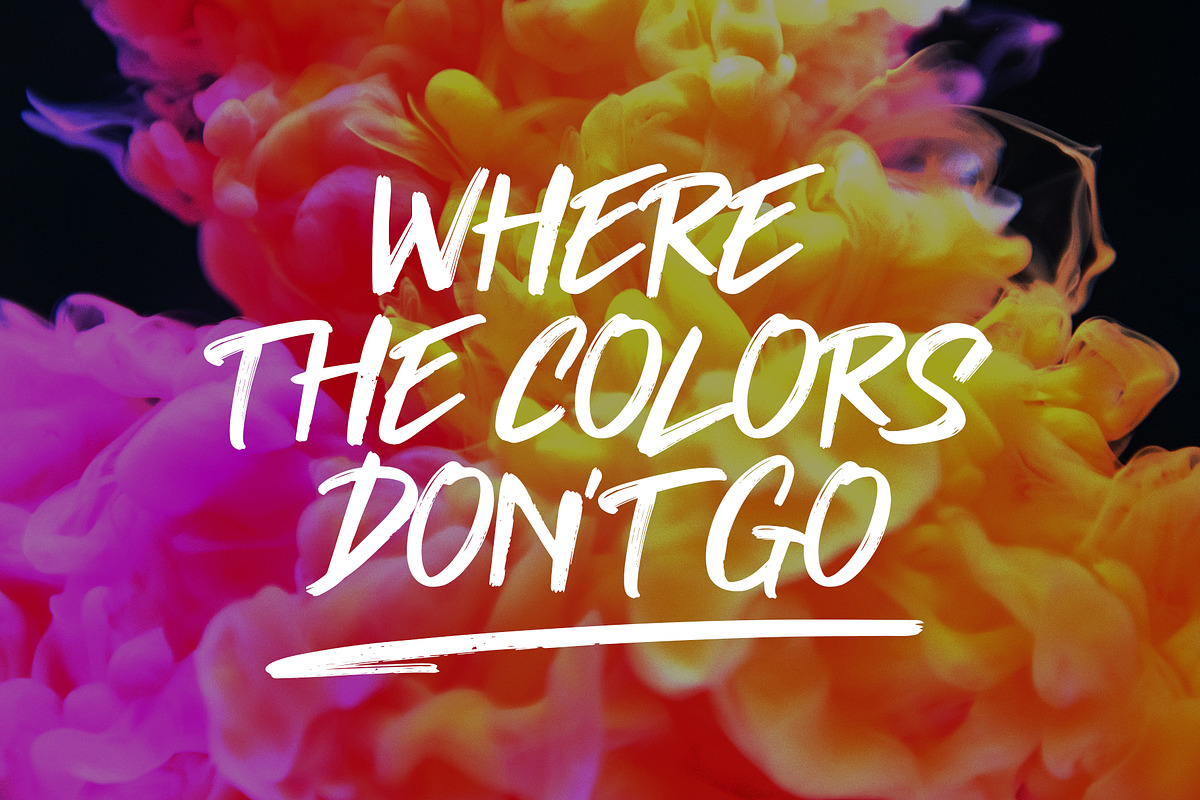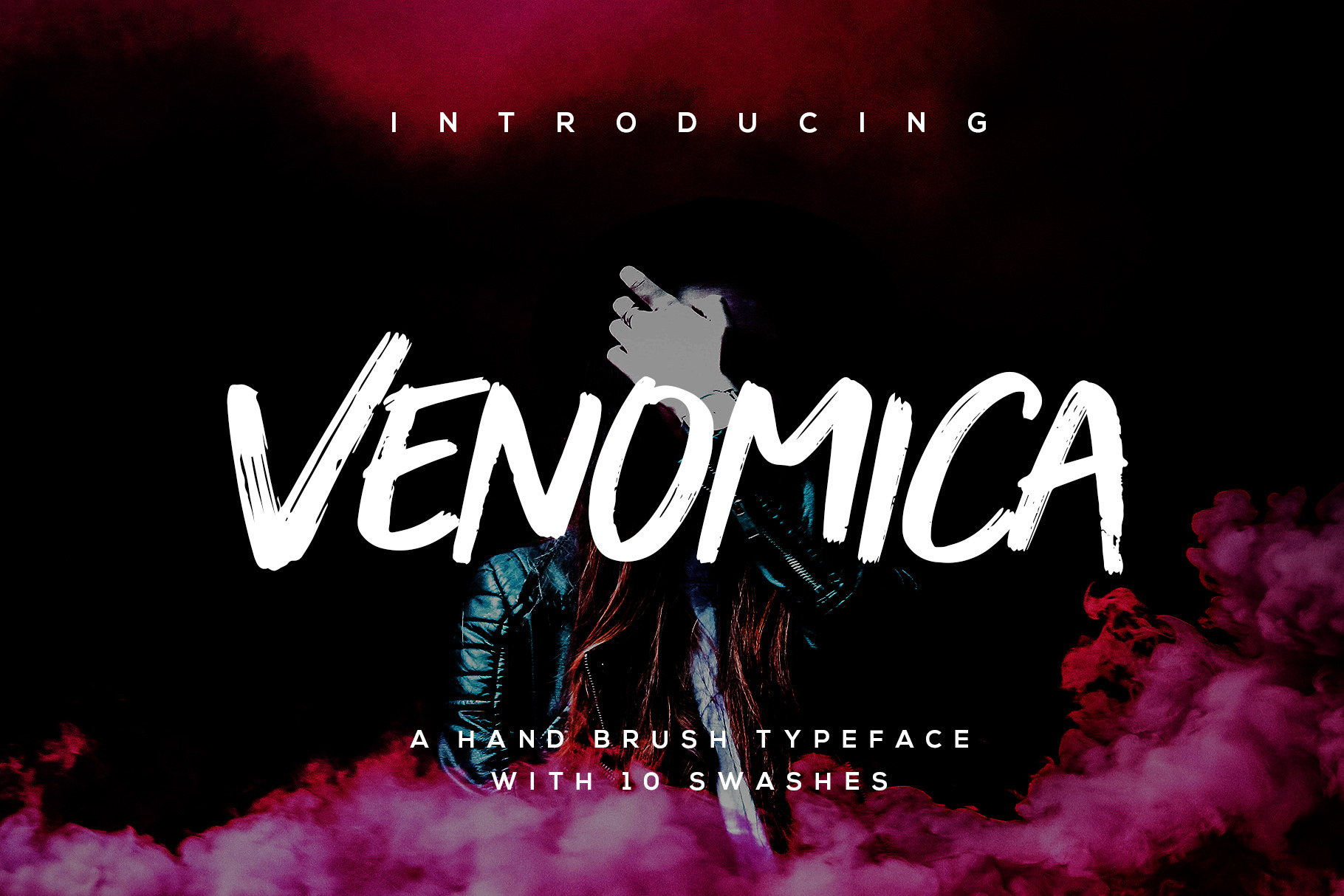
Venomica Brush Font
Introducing Venomica, a handwriting brush typeface. This font offers a unique look and is very attached to your design in a urban style, sports, traveling etc.